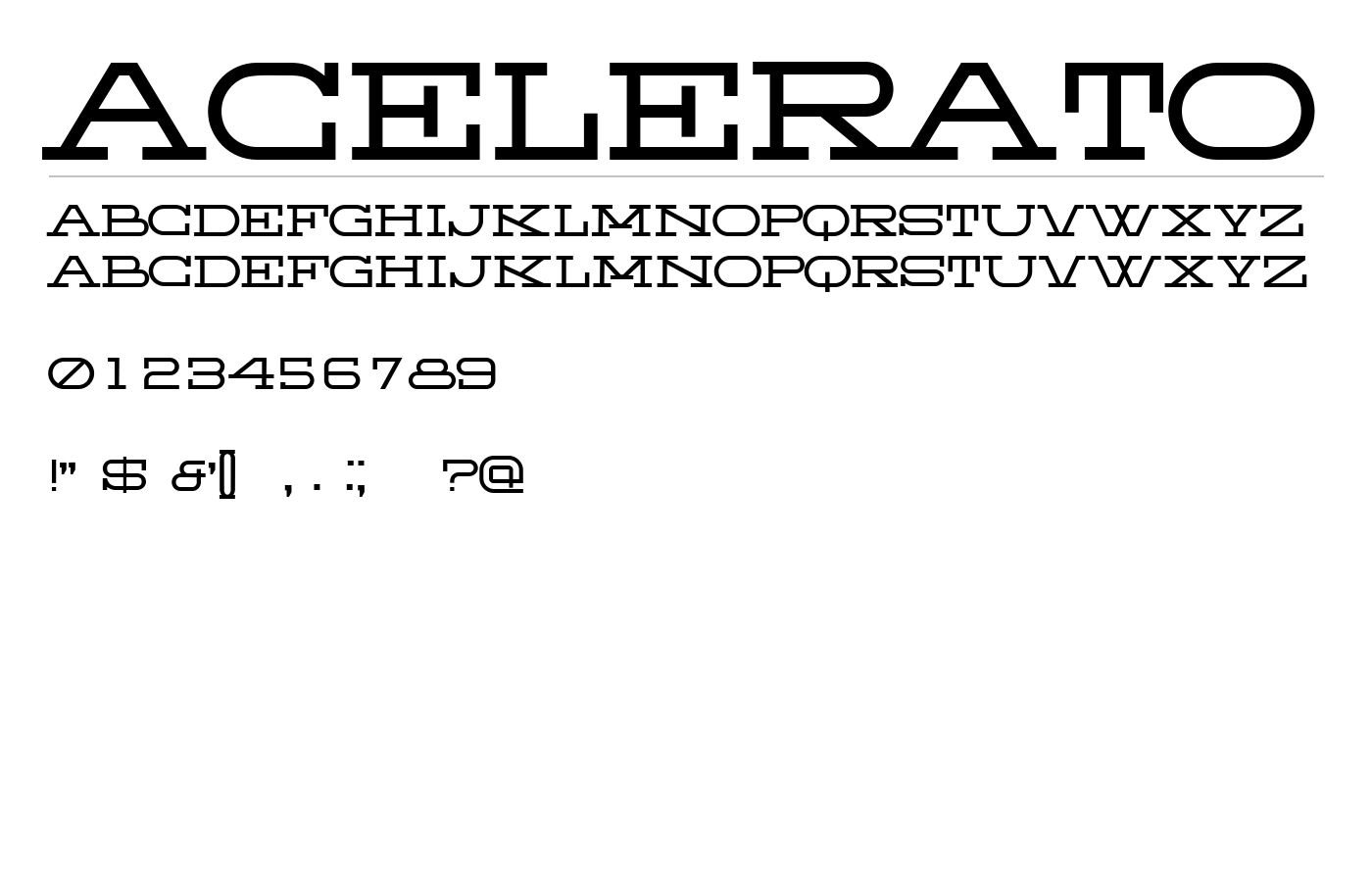
Acelerato is a distinctive slab serif font featuring a strong, bold weight and a modern, mechanical feel. Its wide proportions, high contrast between thick and thin strokes, and unique angular details create an industrial yet elegant look, making it ideal for eye-catching headlines, logos, and branding that demand a sense of strength and sophistication. This font works particularly well in fashion, editorial, and packaging design where style and clarity are key.
Acelerato Font
About Acelerato Font
| Font family | Acelerato Font |